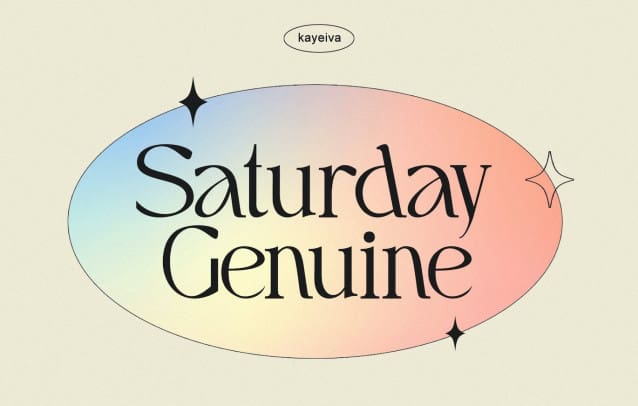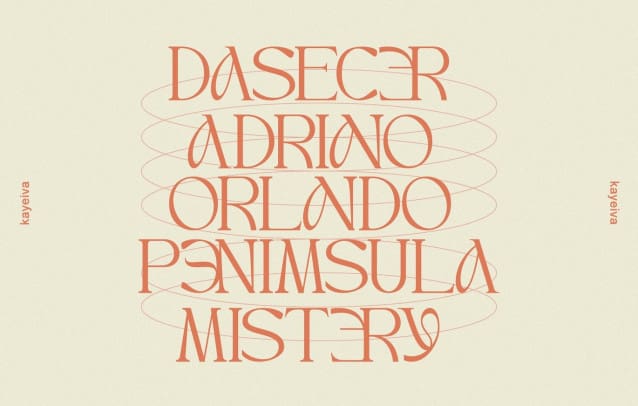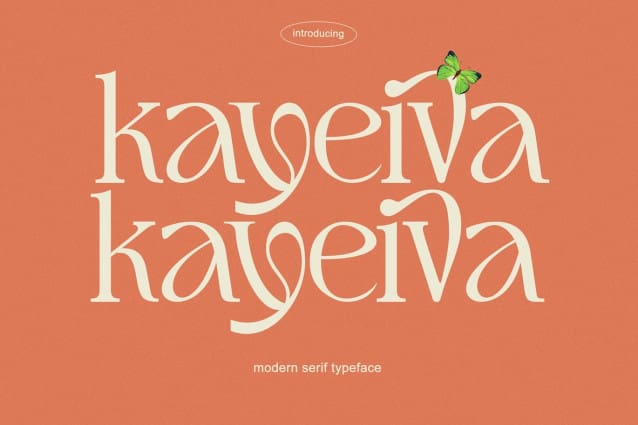
Kayeiva Font
Kayeiva Font is an elegant serif typeface with lots of ligatures and choices of glyphs. Its filled with subtle quirks while still maintaining its graceful shapes.